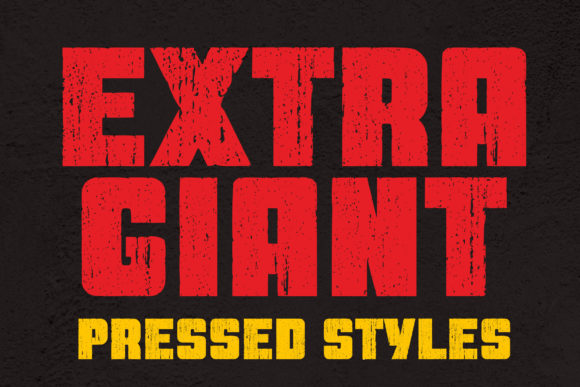
Unleash Your Creativity with Extra Giant Font: The Ultimate Display Font for Bold Designs
Are you a designer or crafter looking for a font that can add a touch of boldness and ruggedness to your projects? Look no further than the Extra Giant Font. This cool, bold, and rough textured display font is perfect for creating stunning posters, flyers, and prints that demand attention. In this article, we’ll explore the features and benefits of Extra Giant Font and show you how to make the most of its endless possibilities.
What is Extra Giant Font?
Extra Giant Font is a unique and eye-catching display font that boasts a rough, textured look. Its bold and giant characters make it perfect for headlines, titles, and short phrases that need to stand out. The font’s rugged texture gives it a raw, edgy feel that’s perfect for designs that require a bit of attitude.
Key Features of Extra Giant Font
- Bold and Giant Characters: Extra Giant Font features characters that are bold, giant, and impossible to miss. Perfect for creating attention-grabbing headlines and titles.
- Rough Textured Look: The font’s rough texture gives it a raw, edgy feel that’s perfect for designs that require a bit of attitude.
- Display Font: Extra Giant Font is specifically designed as a display font, making it perfect for posters, flyers, and prints.
Benefits of Using Extra Giant Font
So why choose Extra Giant Font for your designs? Here are just a few benefits of using this amazing font:
- Adds Visual Impact: The bold and giant characters of Extra Giant Font make it perfect for creating visually striking designs that demand attention.
- Perfect for Posters and Flyers: The font’s rugged texture and bold characters make it perfect for posters, flyers, and prints that need to stand out.
- Endless Possibilities: Extra Giant Font can be used for a wide range of designs, from bold and edgy to creative and playful.
- Unique and Eye-Catching: The font’s rough textured look and bold characters make it a unique and eye-catching addition to any design.
Tips and Tricks for Getting the Most Out of Extra Giant Font
Here are some tips and tricks for getting the most out of Extra Giant Font:
- Experiment with Different Colors: Try out different colors and color combinations to create a unique look.
- Play with Font Sizes: Experiment with different font sizes to create visual interest and hierarchy.
- Combine with Other Fonts: Combine Extra Giant Font with other fonts to create a unique and interesting contrast.
- Add Texture and Patterns: Add texture and patterns to your design to create a more dynamic look.
| Font Name | Extra Giant Font |
| Author | fontherapy |